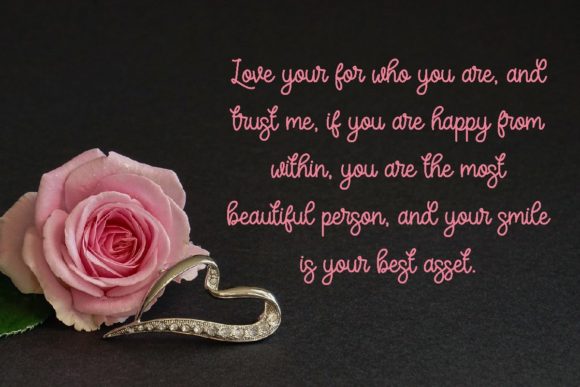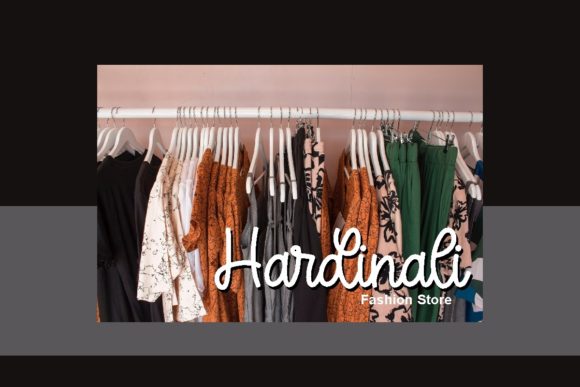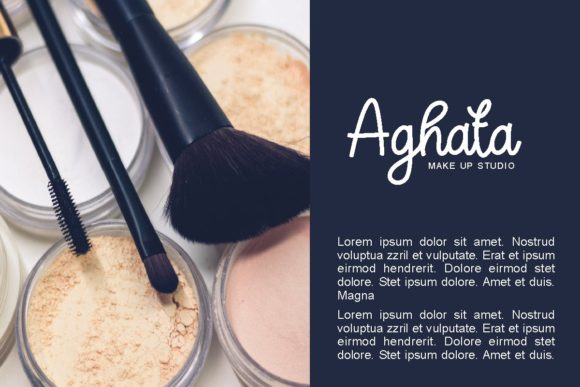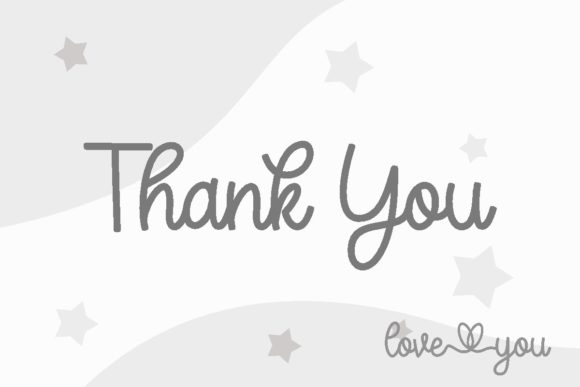
Introducing Baginda Font: The Timeless Handwritten Font for Stunning Designs
Are you a designer or crafter looking for a font that can add a touch of elegance and sophistication to your designs? Look no further than Baginda Font, a lovely and timeless handwritten font that is perfect for creating eye-catching logos, branding, and quotes.
What Makes Baginda Font Special?
Baginda Font is a unique and beautiful font that stands out from the rest. Every letter has a distinctive and lovely touch that will make your design come alive. The font is carefully crafted to provide a classic and timeless look that will never go out of style.
Baginda Font is the best choice for creating stunning logos, branding, and quotes. The font’s elegant and cursive style makes it perfect for adding a touch of sophistication to your designs. Whether you’re creating a logo for a new business or designing a quote for social media, Baginda Font is the perfect choice.
Unique and Beautiful Touch
One of the standout features of Baginda Font is its unique and beautiful touch. Every letter is carefully crafted to provide a distinctive look that will set your designs apart from the rest. The font’s beautiful touch will add a touch of elegance and sophistication to your designs, making them truly unforgettable.
Why Choose Baginda Font?
There are many reasons why designers and crafters choose Baginda Font for their designs. Here are just a few:
- Timeless look: Baginda Font has a classic and timeless look that will never go out of style.
- Unique and beautiful touch: Every letter has a distinctive and lovely touch that will make your design come alive.
- Perfect for logos and branding: The font’s elegant and cursive style makes it perfect for creating stunning logos and branding.
- Easy to read: Despite its elegant style, Baginda Font is easy to read and understand.
How to Use Baginda Font
- Use it for logos and branding: Baginda Font is perfect for creating stunning logos and branding.
- Experiment with different colors: The font looks great in a variety of colors, so don’t be afraid to experiment.
- Pair it with other fonts: Baginda Font pairs well with other fonts, so try pairing it with a bold font for added contrast.
In conclusion, Baginda Font is a lovely and timeless handwritten font that is perfect for creating eye-catching logos, branding, and quotes. Its unique and beautiful touch makes it a standout font that will add a touch of elegance and sophistication to your designs. Whether you’re a designer or crafter, Baginda Font is a great choice for your next project.